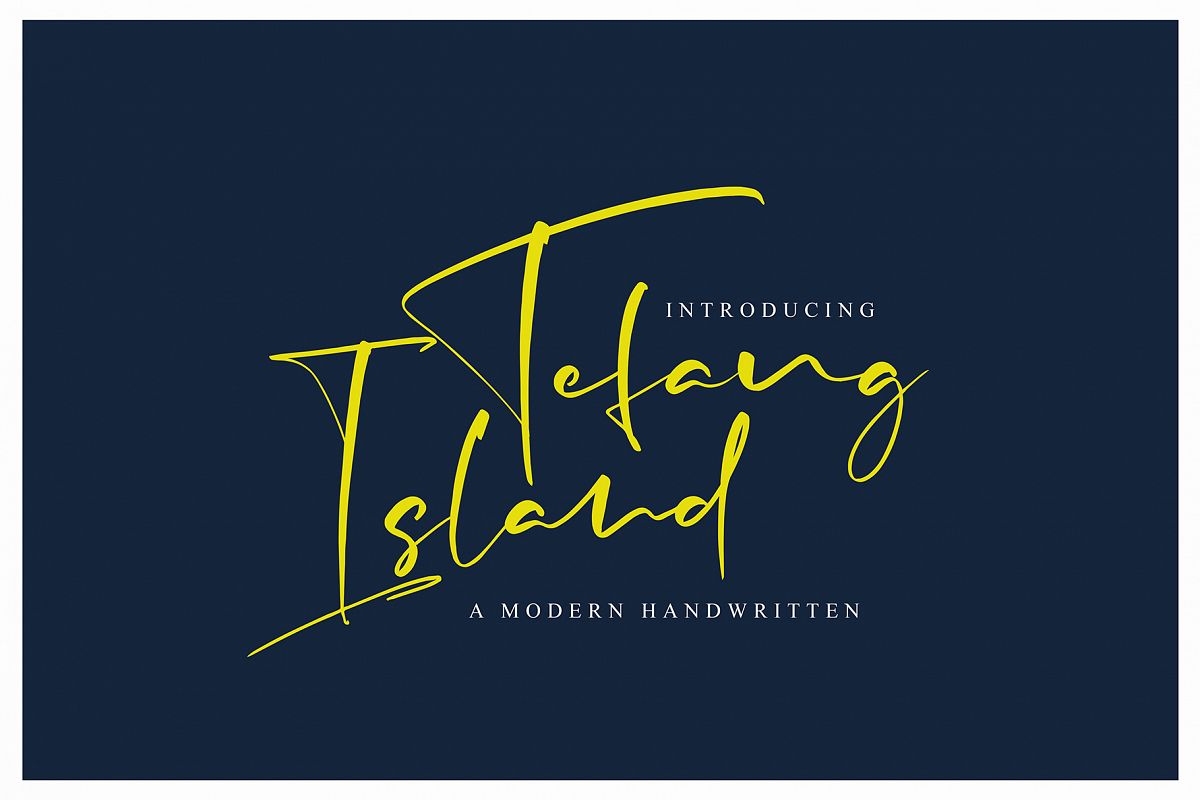
Tefang Island
Tefang Island font with new style  handwritten, this font will perfect for many different project ex: quotes, logo, blog header, poster, banding, fashion, apparel, letter, invitation, stationery, etc...